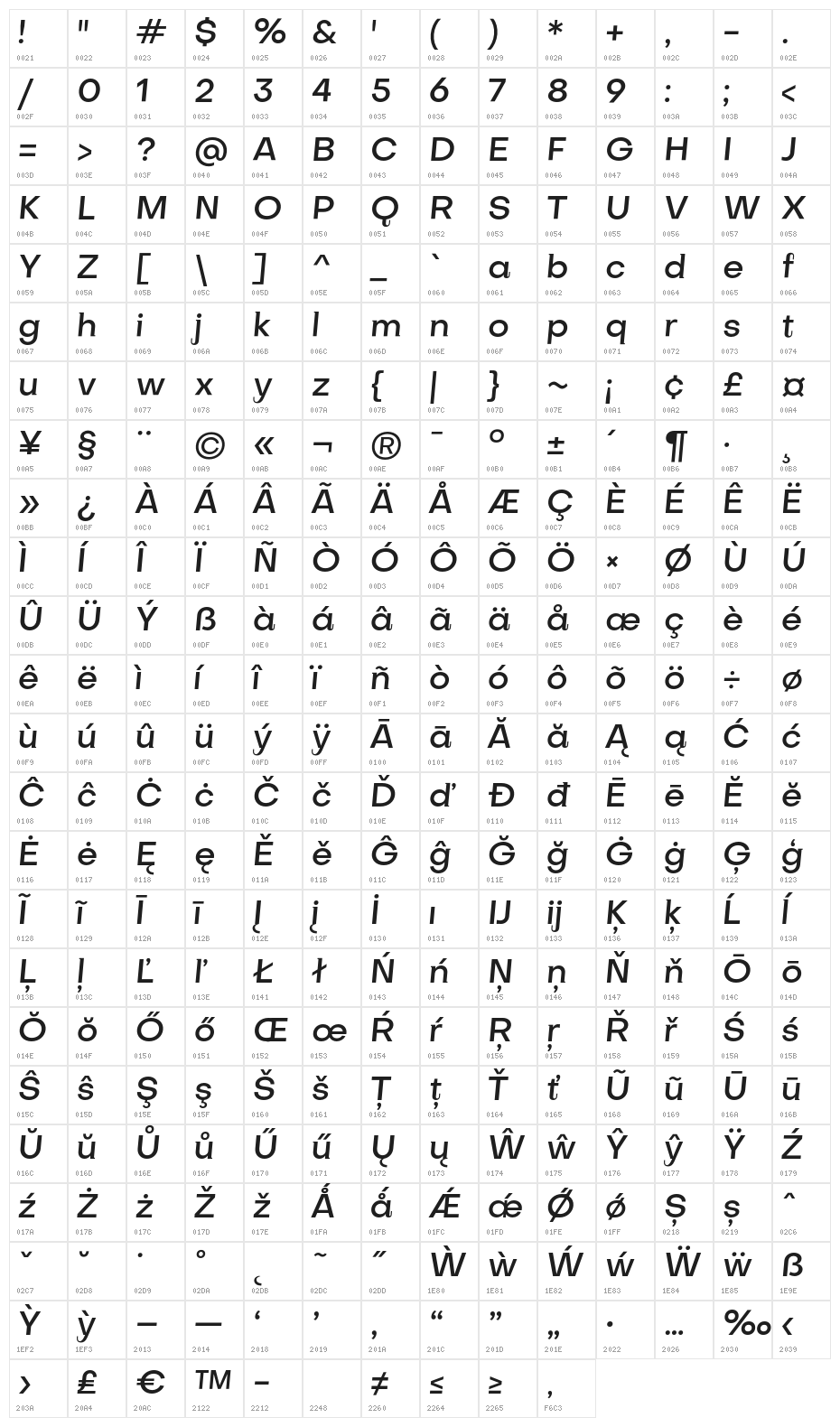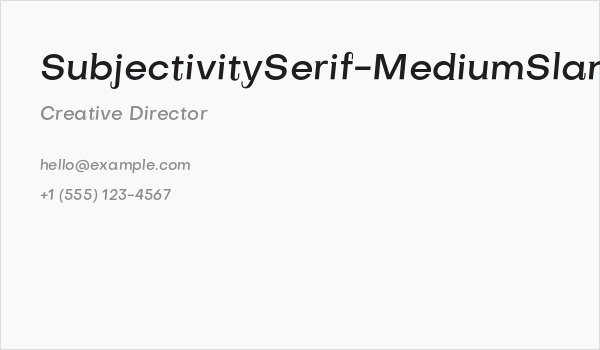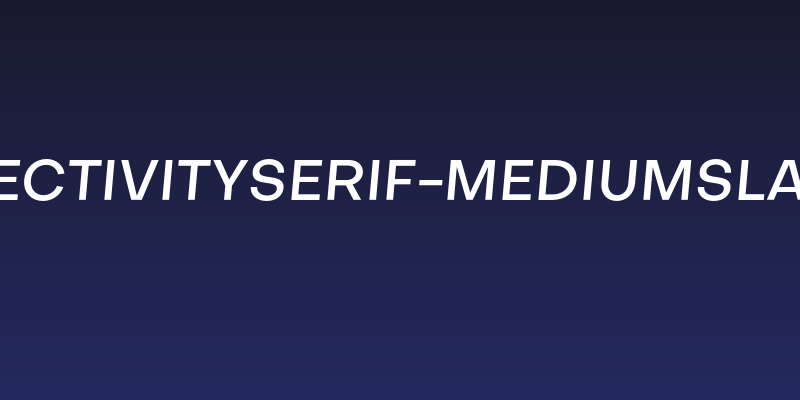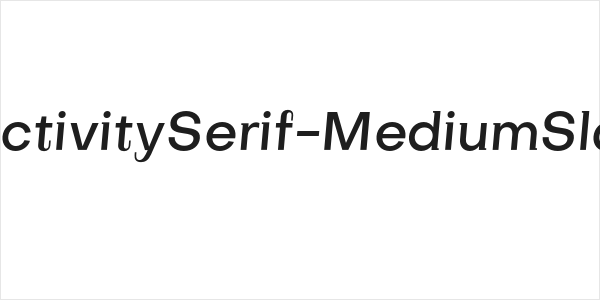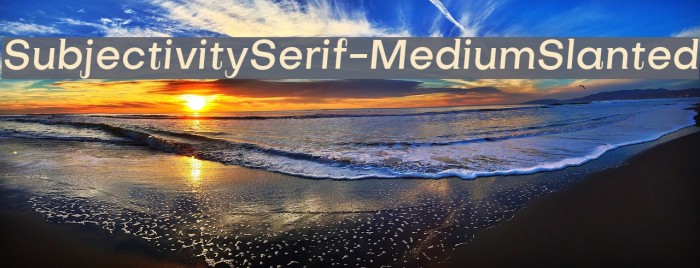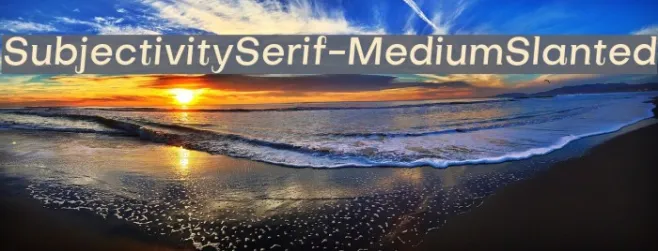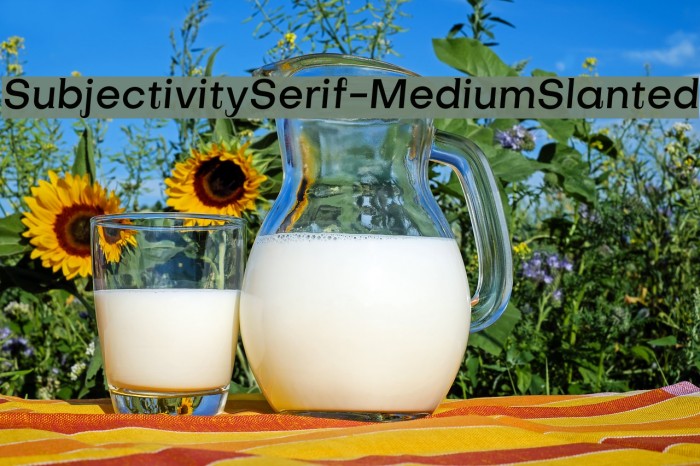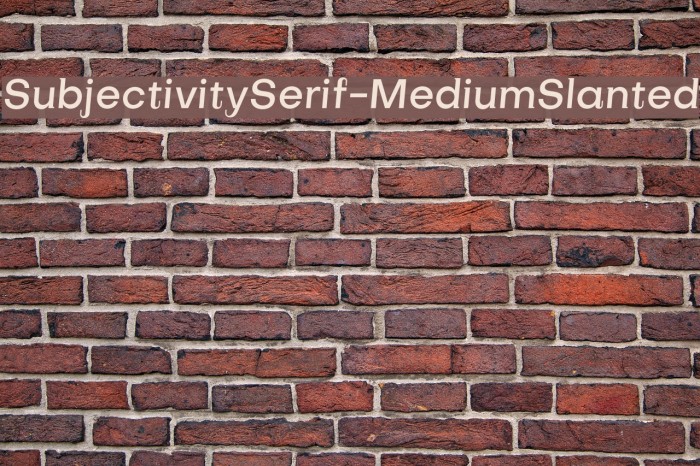
SubjectivitySerif-MediumSlanted Font
SubjectivitySerif-MediumSlanted Description
This font features a clean and modern design with a slight slant, giving it a dynamic and forward-moving appearance. The characters are well-defined with a medium weight, providing a balanced look that is neither too light nor too bold. The sans-serif style ensures a sleek and contemporary feel, making it versatile for various design applications. The spacing between characters is normal, allowing for easy readability while maintaining a cohesive visual flow. The contrast in stroke thickness is medium, offering a subtle variation that enhances the font's legibility without being overpowering. Overall, this font exudes a modern and professional vibe, suitable for a wide range of uses.